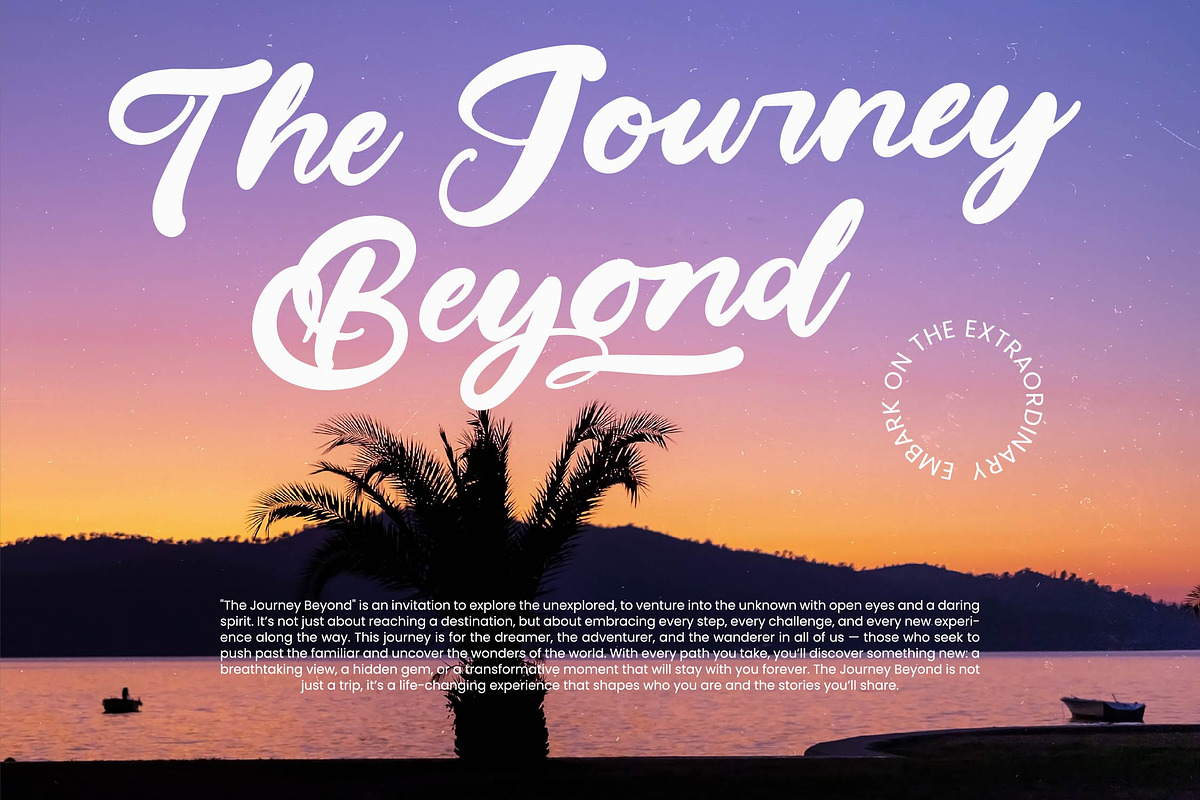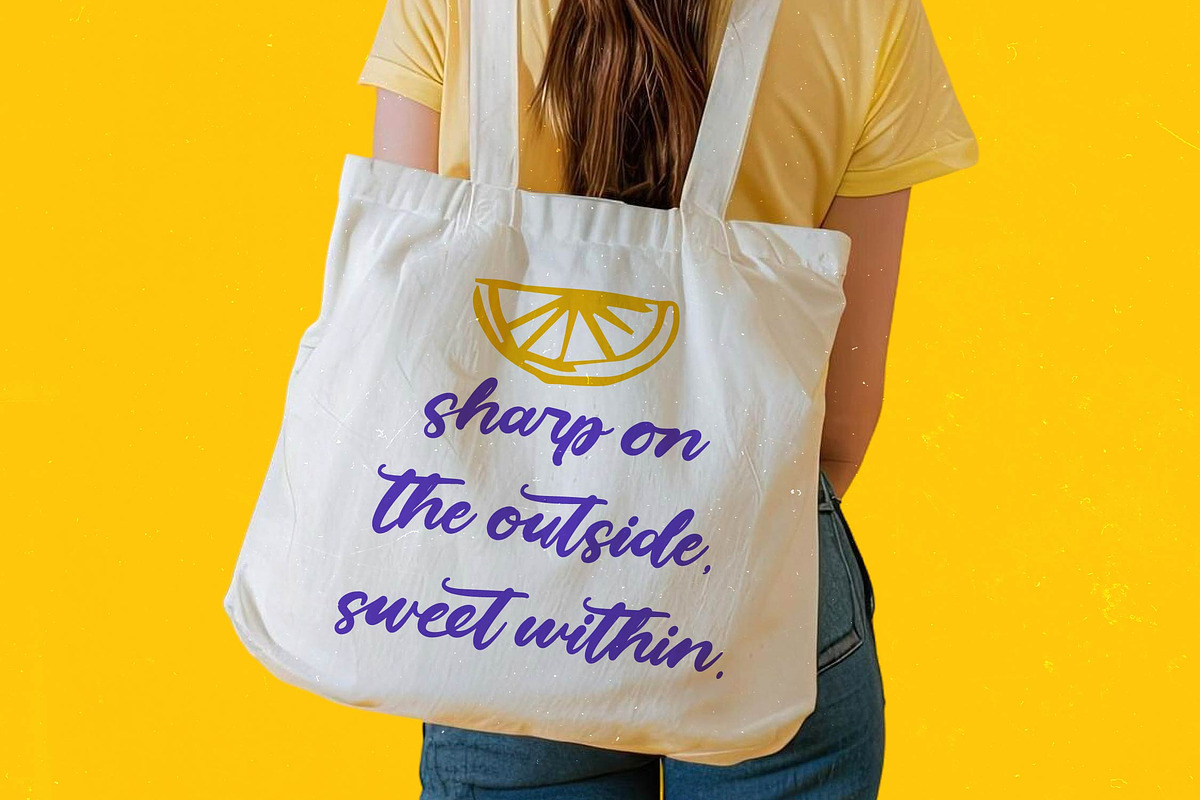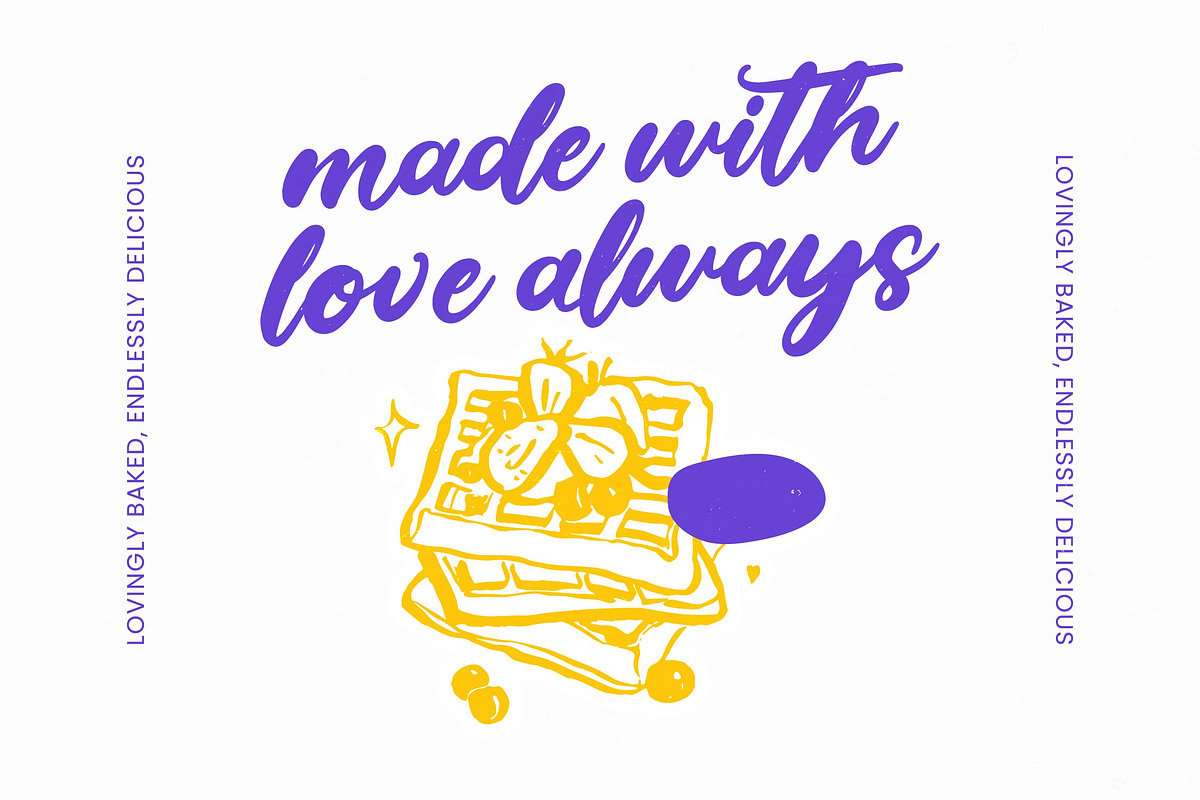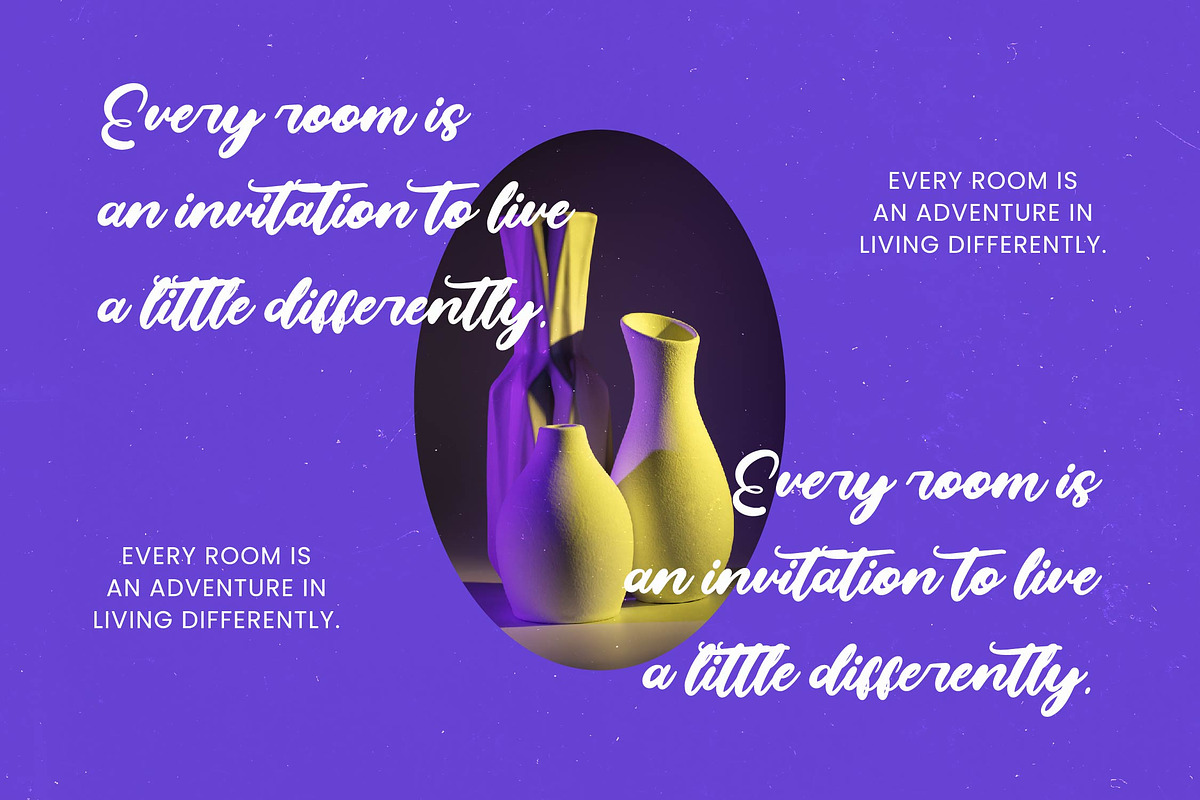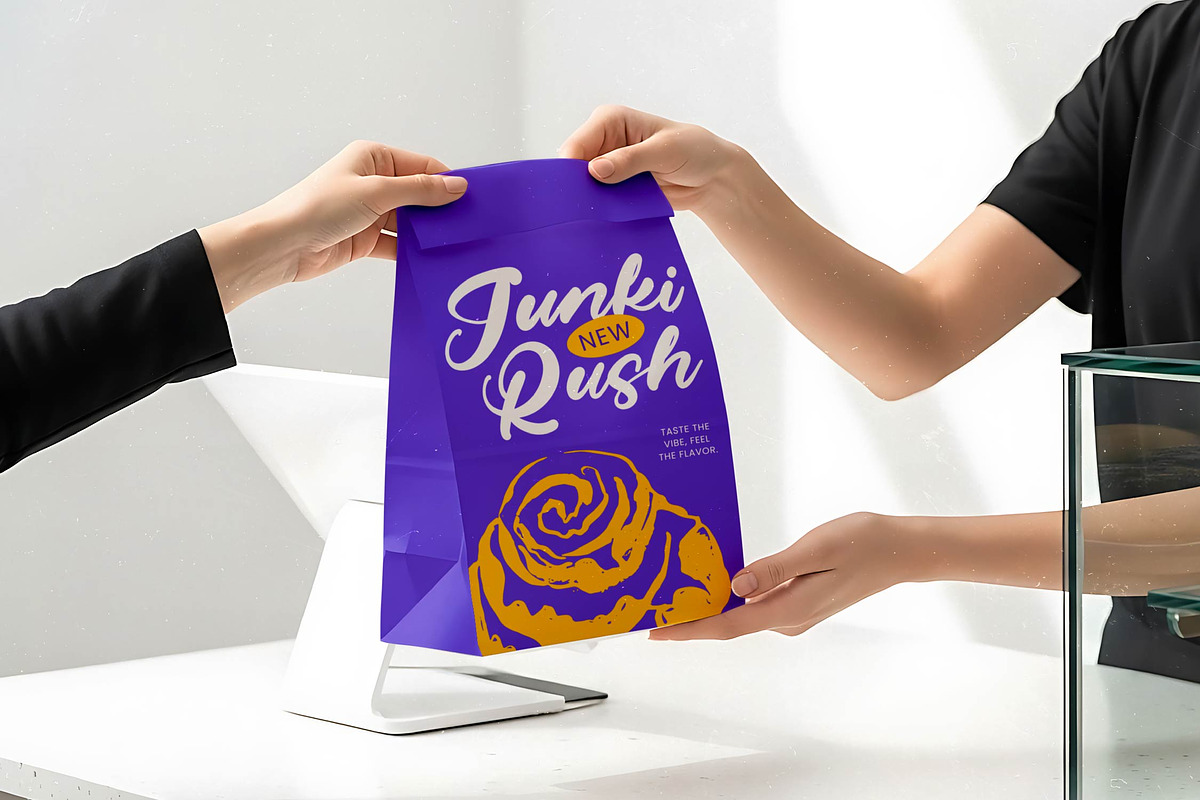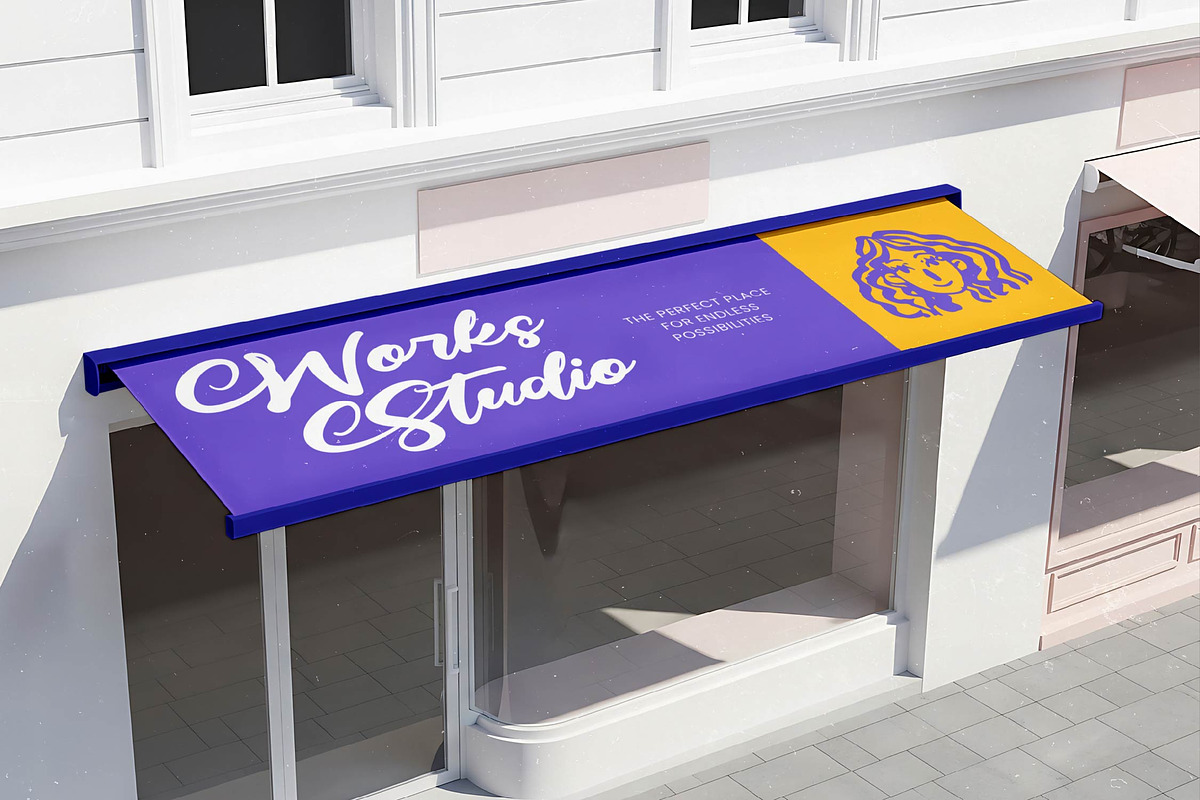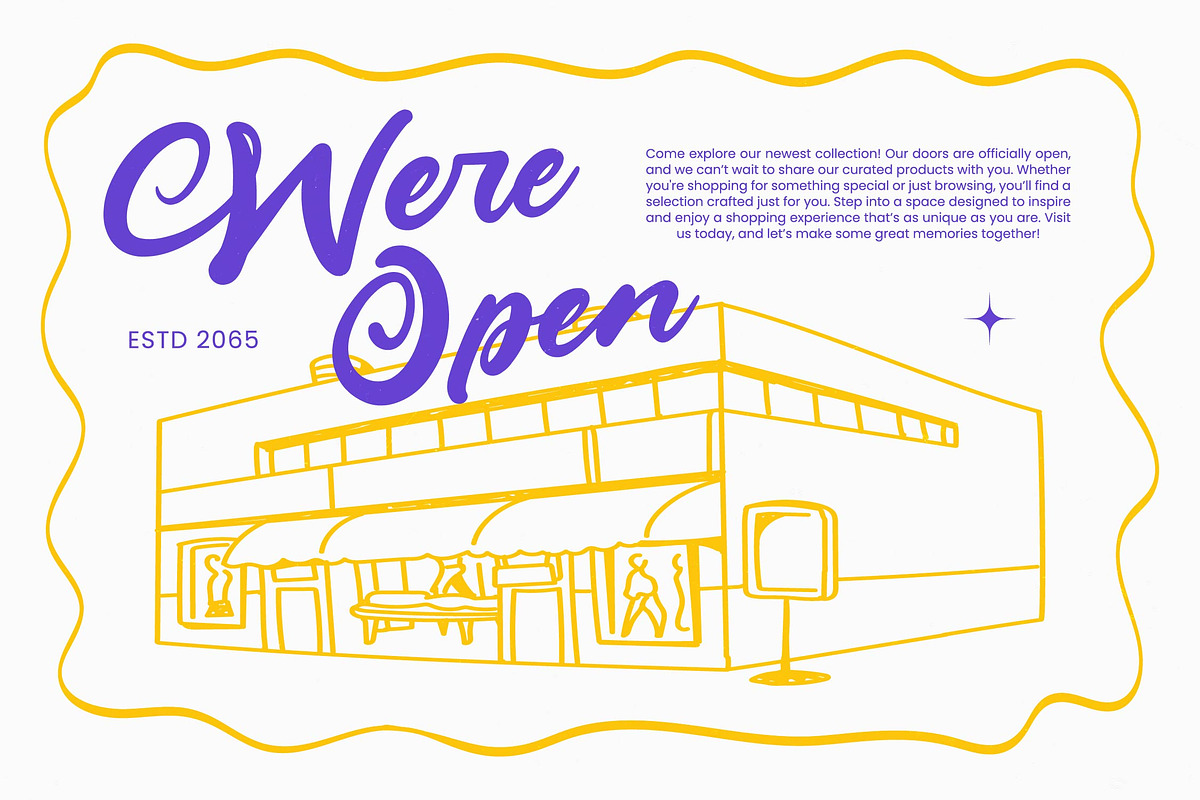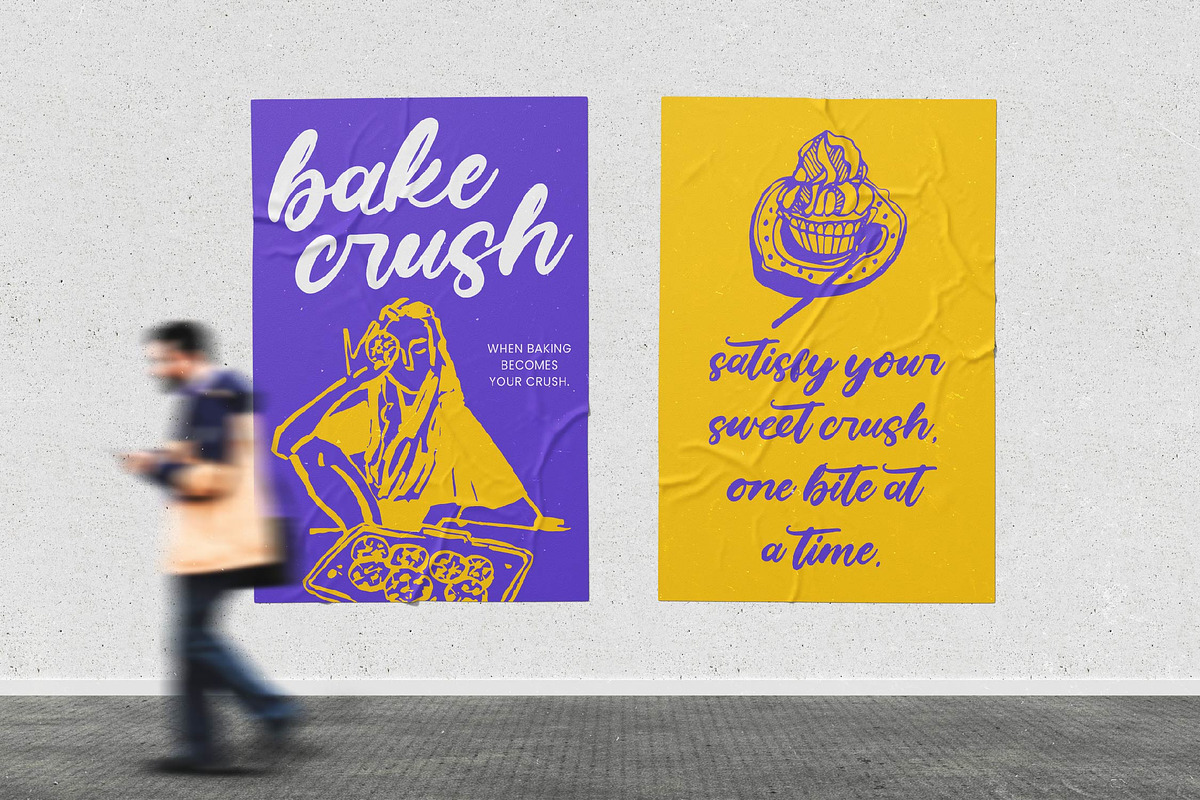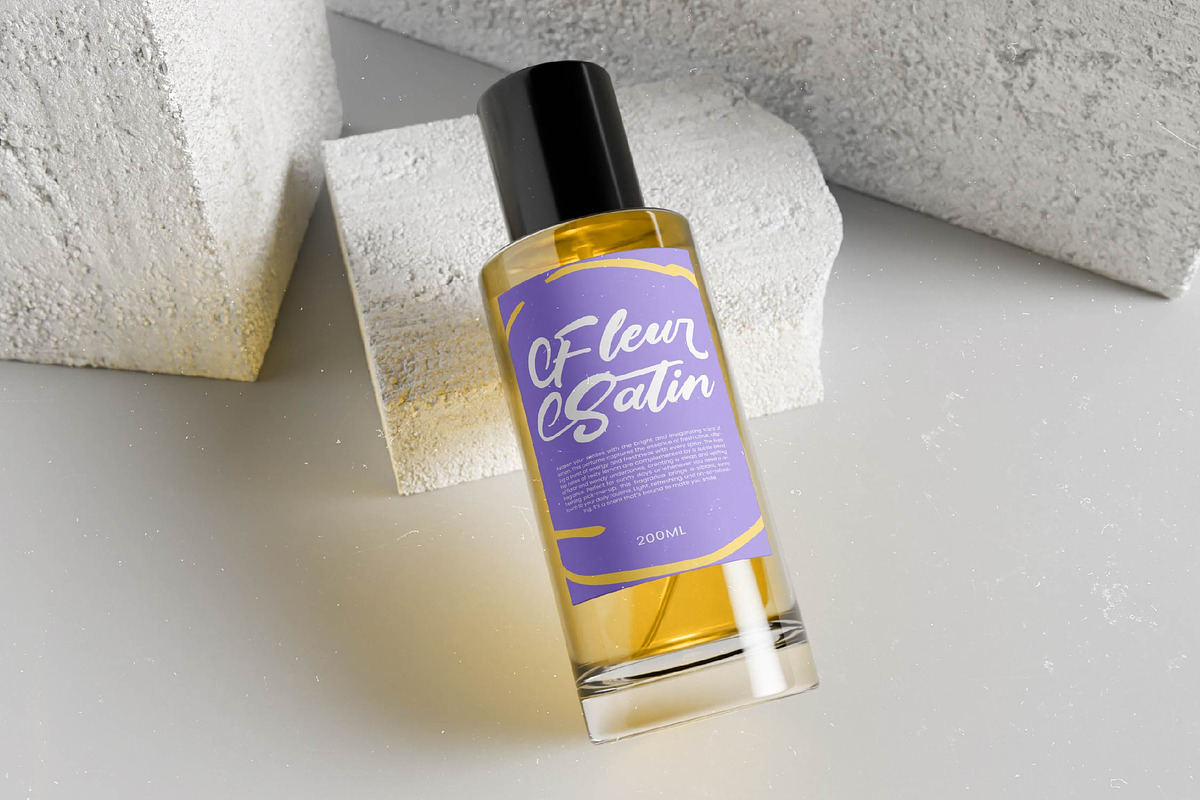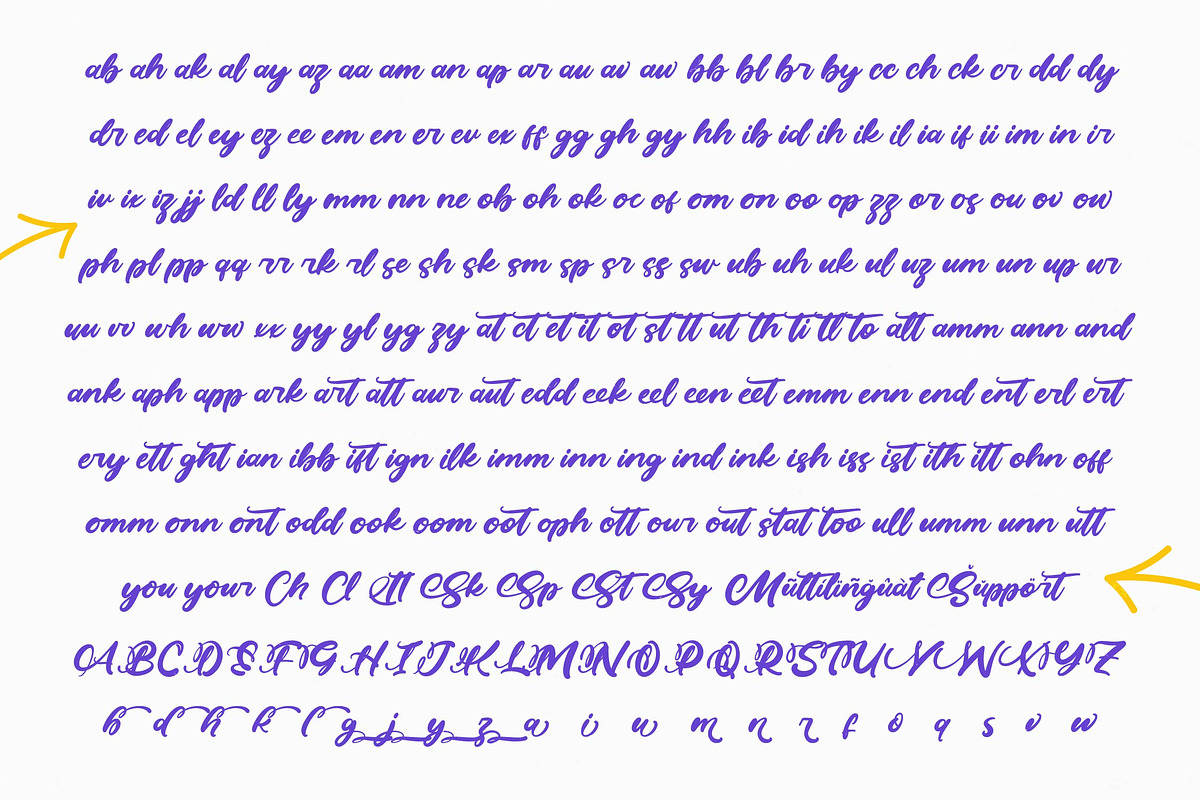
Tarkeni - Bold Calligraphy Font
Tarkeni - Bold Calligraphy Font , Elevate your design projects with a typeface that embodies sophisticated craftsmanship. Tarkeni - Bold Calligraphy Font offers a striking balance between artistic fluidity and bold presence. This premium typeface captures the essence of modern calligraphy with its rich, flowing strokes and confident weight. It is meticulously designed to provide a handcrafted aesthetic that feels both personal and high-end, ensuring your message is delivered with maximum visual impact.
Transforming visual identities has never been more effortless. This font is the ultimate solution for designers seeking to make a statement in luxury branding, gourmet packaging, and editorial design. Tarkeni - Bold Calligraphy Font is perfect for creating captivating logos, high-end wedding invitations, and premium product labels. Its bold curves and seamless flow make it an ideal choice for social media graphics and lifestyle advertisements where a touch of elegance is required to stand out.
Experience unparalleled creative freedom with a font built for global reach. With its extensive multilingual support, Tarkeni - Bold Calligraphy Font adapts seamlessly across global markets, making it incredibly versatile for international projects. It boasts an impressive library of 190 ligatures and 47 alternates, allowing for a high degree of typographic customization. This technical versatility ensures that every character connection looks natural and unique, providing a custom-lettered look that maintains a professional edge across various platforms.
Secure a timeless asset for your creative toolkit today. Investing in Tarkeni - Bold Calligraphy Font means choosing a versatile design tool that bridges the gap between classic elegance and contemporary style. Whether you are working on a boutique identity or a large-scale marketing campaign, this font delivers a consistent sense of sophistication and quality. Let Tarkeni - Bold Calligraphy Font be the cornerstone of your next iconic project, offering the bold personality and refined finish your clients deserve.